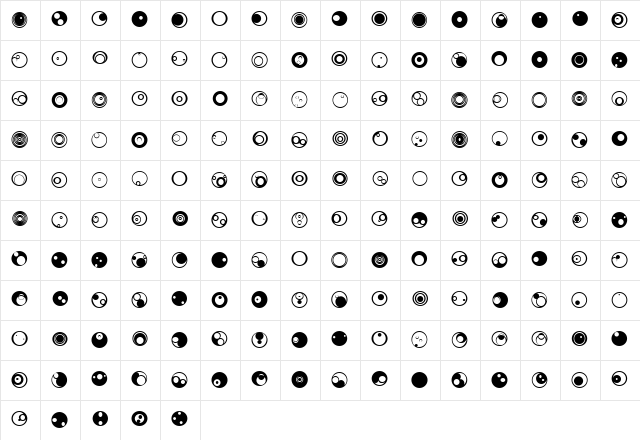
Cycles Regular
Design Context for Cycles Typeface
Cycles is a composed and adaptable typeface that performs quietly and consistently across a wide range of design contexts.